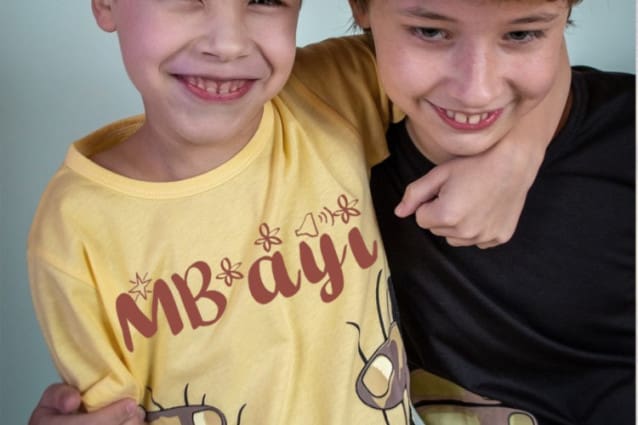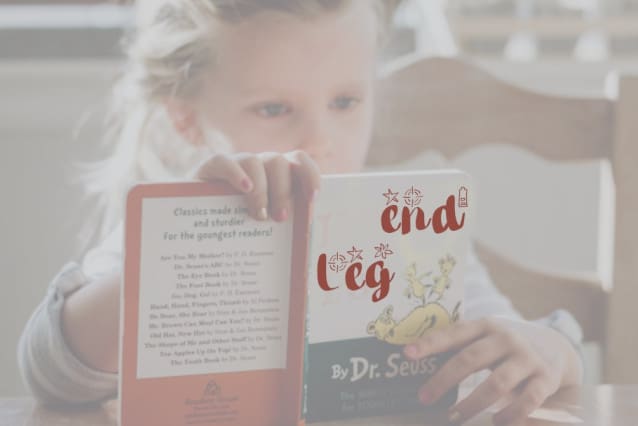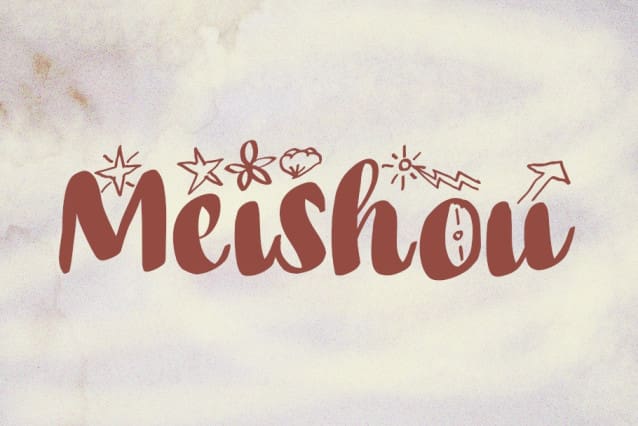
Meishou Script Font
Meishou Script Font – decorative script is a fun and quirky font with a unique symbol in each glyph font . This font is the perfect fit for all of your logos, branding, social media, and many others